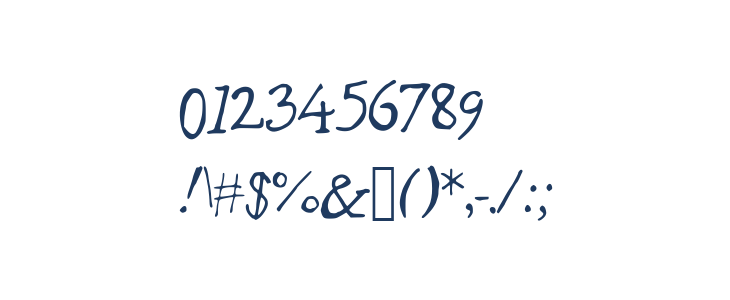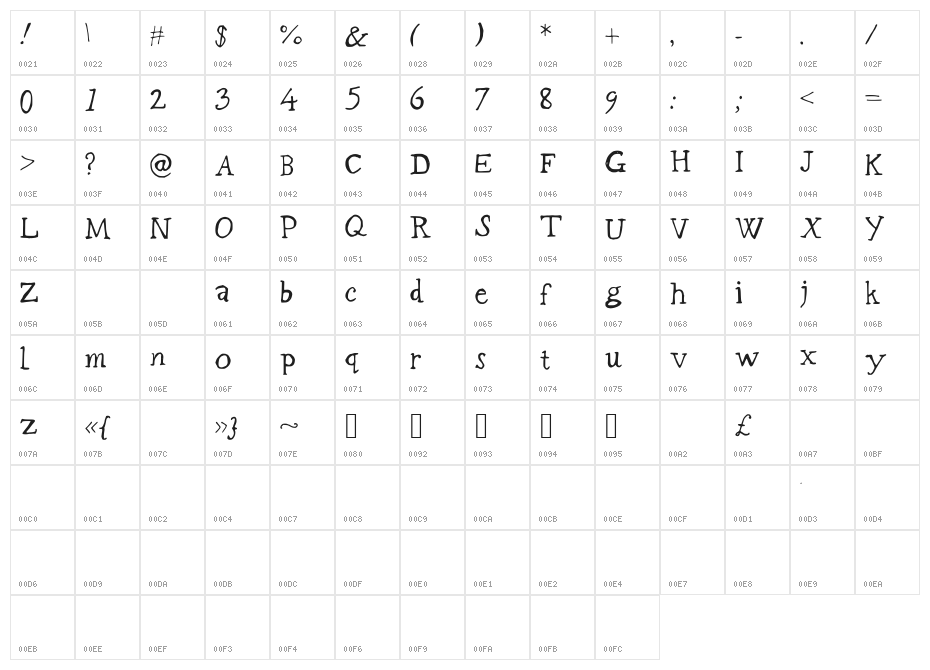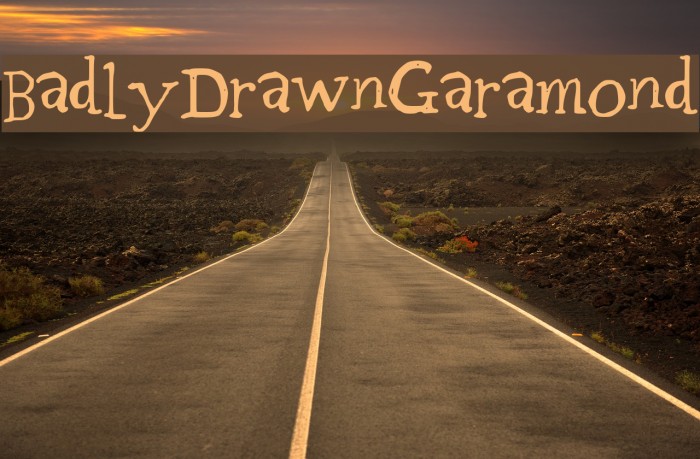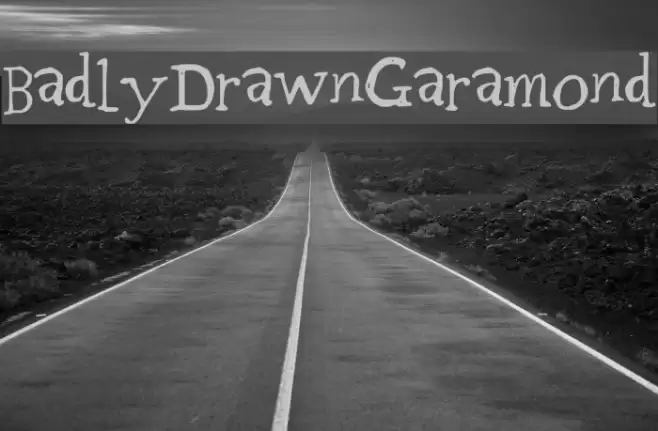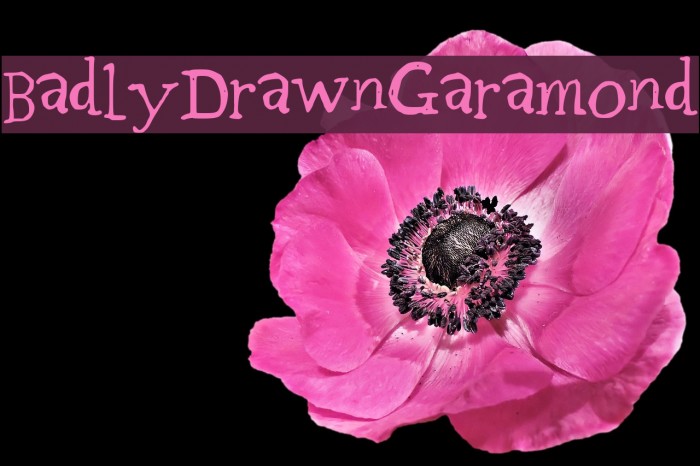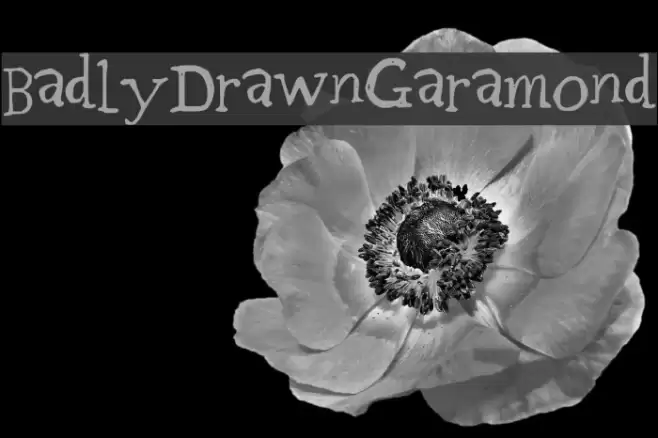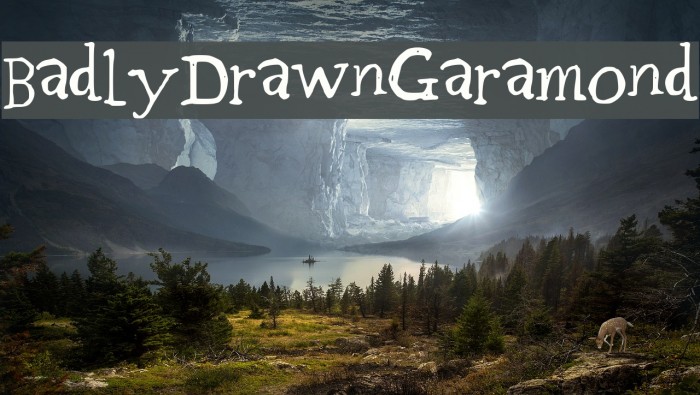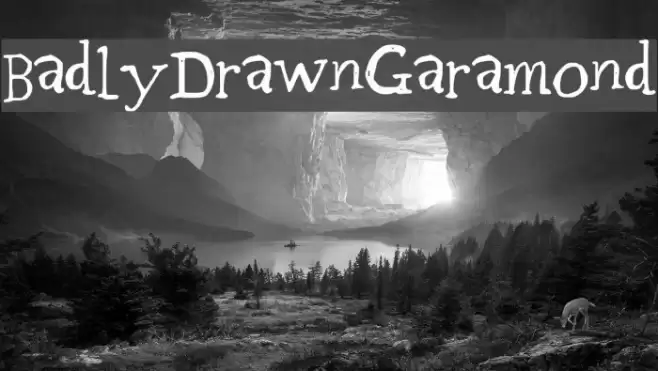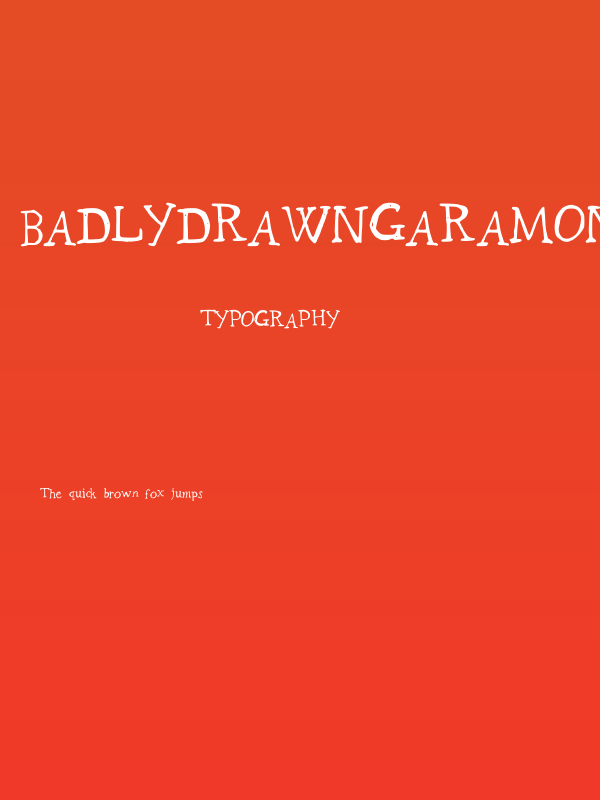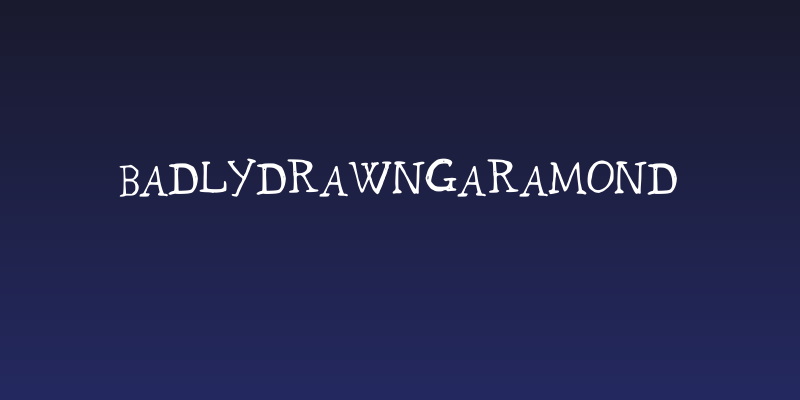
BadlyDrawnGaramond Font
BadlyDrawnGaramond Description
This font exhibits a playful and whimsical style, characterized by its uneven and hand-drawn appearance. The letters have a quirky, imperfect quality, with varying stroke thicknesses and irregular shapes that give it a unique charm. The uppercase letters maintain a sense of traditional serif structure, yet each character has its own distinct personality. The lowercase letters continue this theme, with some characters appearing slightly tilted or elongated, enhancing the casual and artistic feel. Numbers and special characters follow the same playful design, making the font suitable for creative and informal projects. Overall, this font captures a sense of spontaneity and artistic expression, making it stand out in any design context.
| Overall Style | Whimsical, Artistic, Playful |
| Use Case | Headlines, Creative projects, Informal designs |
| Proposed Projects | Ideal for children's books, creative posters, artistic branding, and informal invitations. |